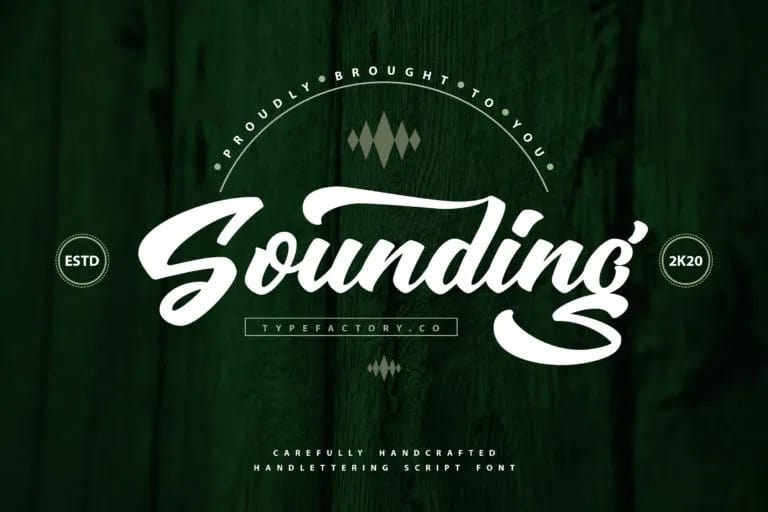
Sounding Script Font
Sounding Script Font Beautiful and elegant script font inspired by real hand strokes with ink and brushes. Spontaneous and confident letterforms give off a natural impression. This font is perfect for designs that are girly, bold and free of expression. Made from font designer named Type Factory. This font is a Script typeface, perfectly suitable for creating quotes, sport, lifestyle design such as logos, title, and magazine and more.